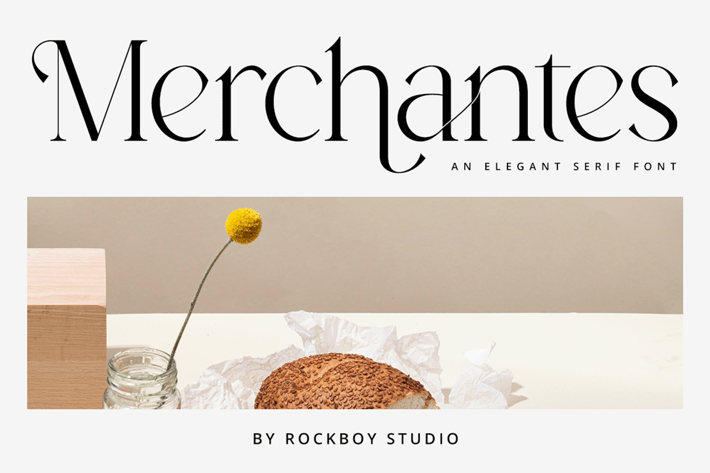
Merchantes - Advertisement Font
RockboyStudio
Merchantes is an elegant and modern sans serif font. It can easily match your various projects, so add it to your creative ideas and watch how it makes them stand out.